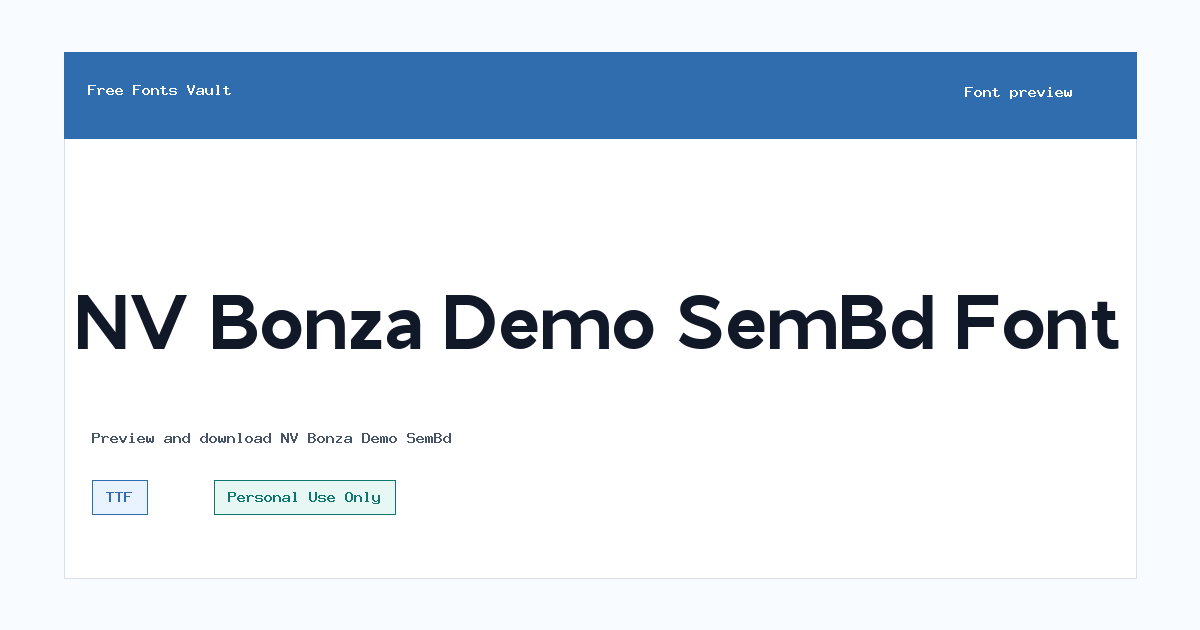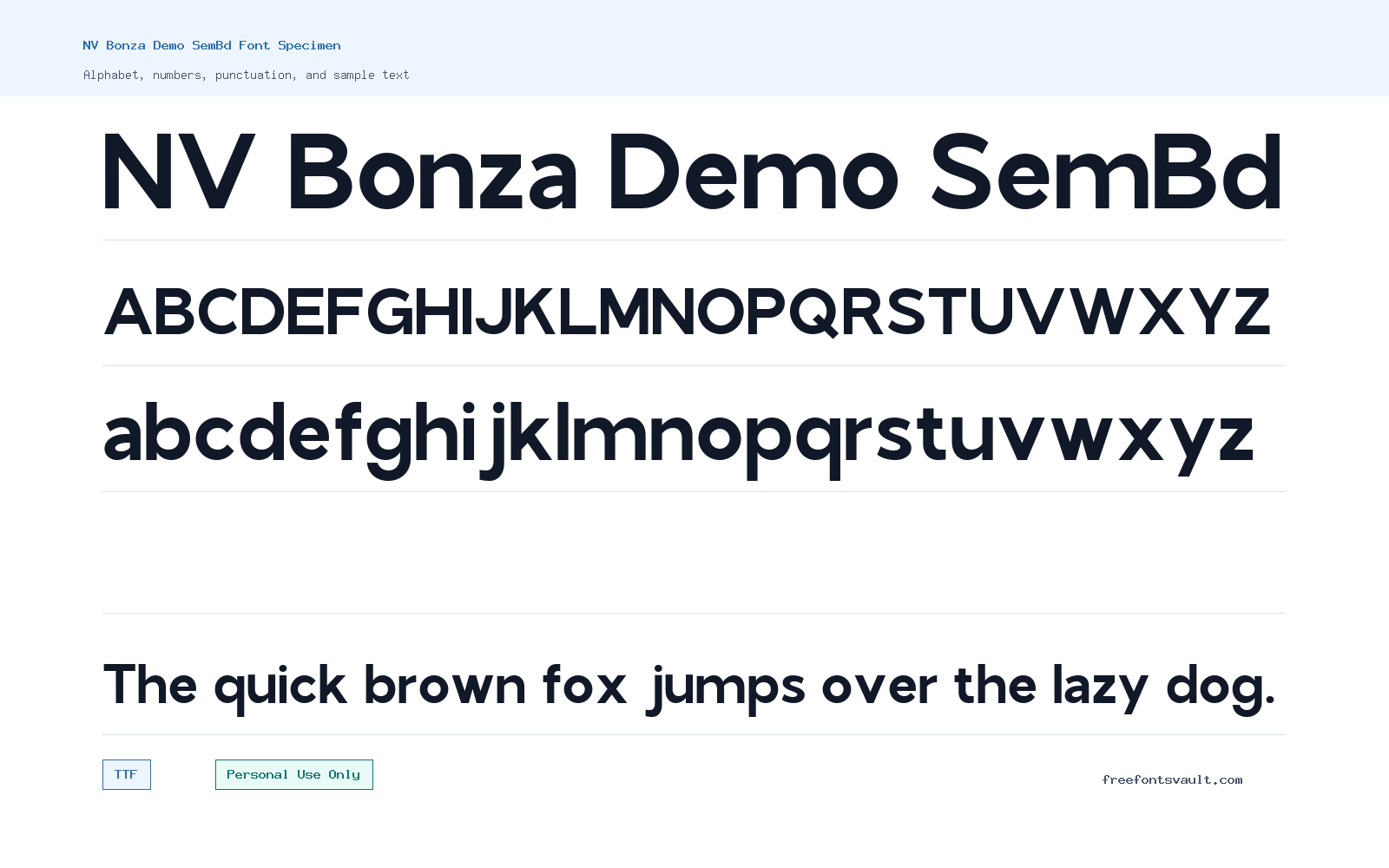
NV Bonza Demo SemBd
- Designer Almer Muhammad Hafidz
- Foundry NovaraType
NV Bonza Demo SemBd is a semi-bold demo font from the NV Bonza sans serif family. It is available as a TTF file and is best treated as a personal-use font unless you have a separate commercial license from the rights holder.
NV Bonza Demo SemBd gives you a heavier sans serif style for short, clear text settings. The name points to a SemiBold cut, so it should be more useful for headings, labels, buttons, poster text, and other places where a regular weight may feel too light. Because only one demo TTF variant is listed, it is better to use it as a display or emphasis font rather than as a full multi-weight type system.
- SemiBold-style weight suited to stronger headings and short emphasis text.
- Personal design drafts, posters, title graphics, social images, and preview mockups.
- Short headings, labels, buttons, nameplates, and clean sans serif display text.
The designer is listed as Almer Muhammad Hafidz, and the foundry is listed as NovaraType.
What weight is this font?
The listed font weight is 700, and the file name identifies it as SemiBold.
Who designed NV Bonza Demo SemBd?
The designer is listed as Almer Muhammad Hafidz, with NovaraType listed as the foundry.